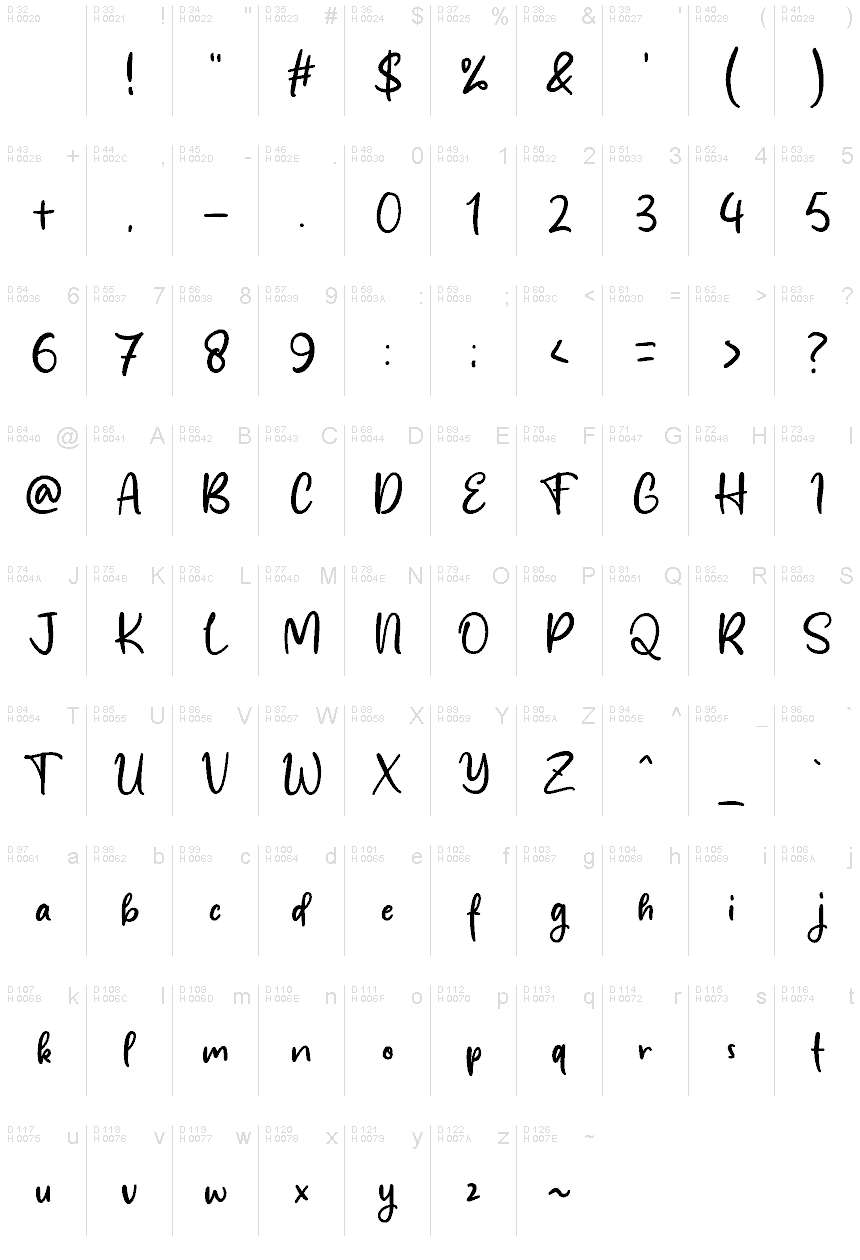
Melly Shoopia
Melly Shoopia font by MJType is an expressive and artistic handwritten font with a flowing, modern appearance. Friendly in its design, the font exudes a casual vibe where all letters are on one line but with different and varying base heights.